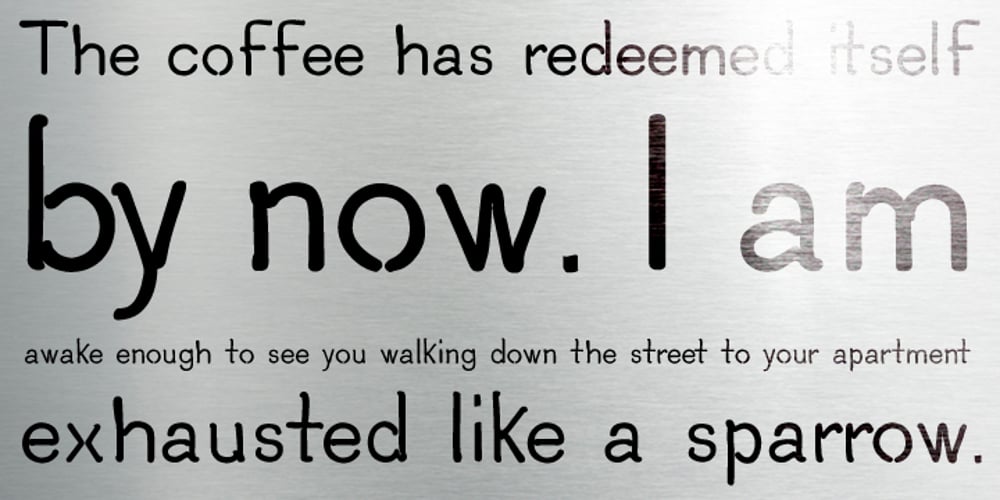
24 HRS Font Family was designed by Christian Acker and published by Design is Culture. 24 HRS contains 1 styles and family package options. A font designed by Christian Acker (2002), based upon neon signage in downtown New York. 24Hrs was an exercise in creating flat artwork from the inspiration of neon’s three dimensional forms. All of the tubing’s overlapping and twisting is documented and taken into account in the design of the letterforms.